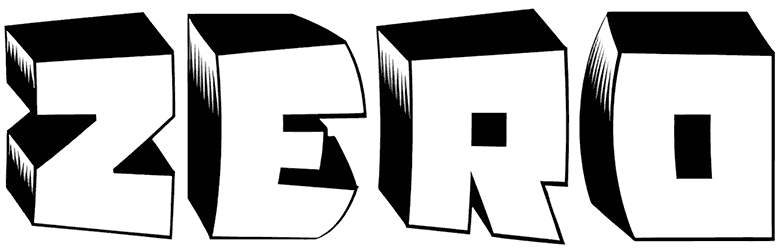
Zero Font
A balance between rigidness and flexibility is observed in designing the blocky font. Zero font with three styles of uppercase letters and without lowercase letters and numbers can contribute to your titles and brighten…
A balance between rigidness and flexibility is observed in designing the blocky font. Zero font with three styles of uppercase letters and without lowercase letters and numbers can contribute to your titles and brighten many headlines. When looking for strong fonts that will make the audience feel concentrated yet convenient, this display font family will help you reach the intention.